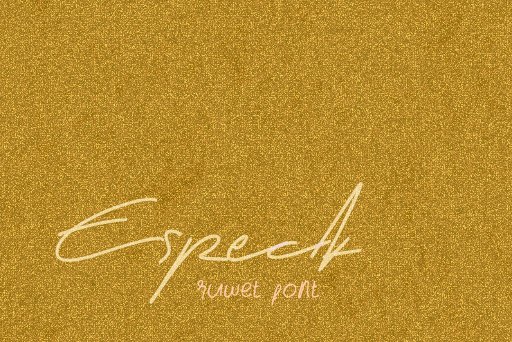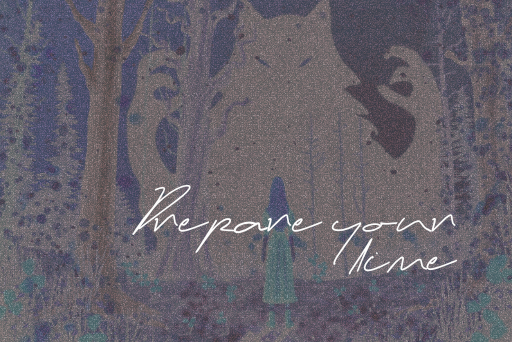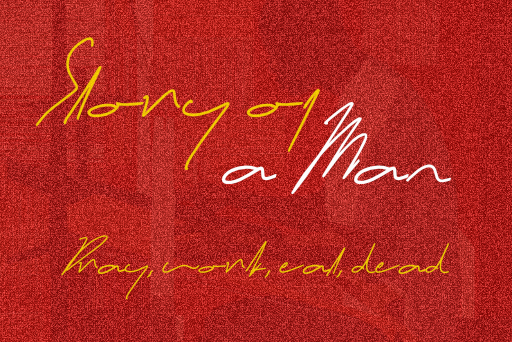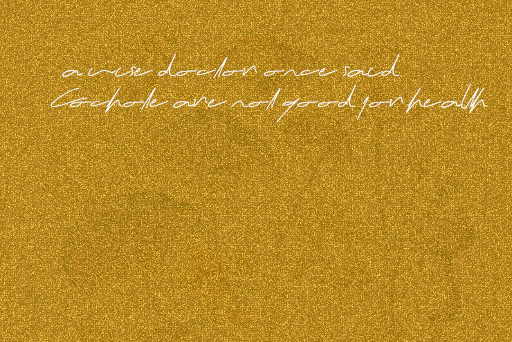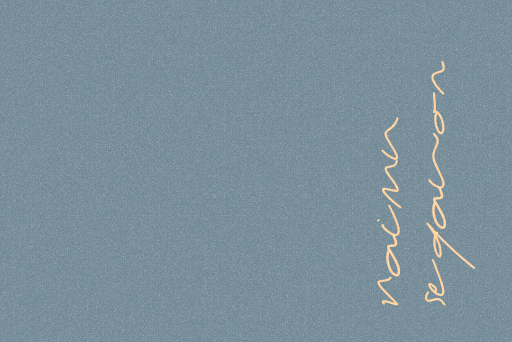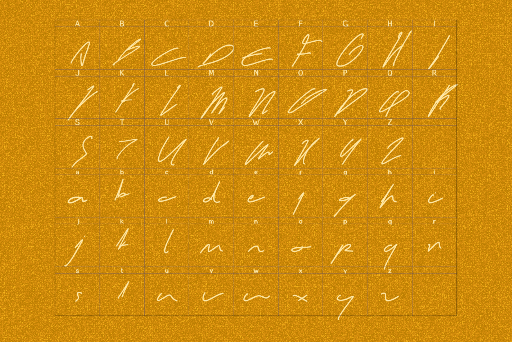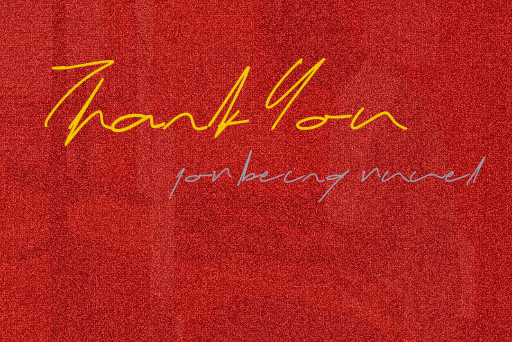
Especk griffonage font is set of hand-drawn fonts, designed to mimic lively, messy, doctor style, imperfect and friendly lettering. It’s a charming choice for personal-feel logo designs, quotes, packaging, kid-friendly products, fun greeting cards, craft and more.